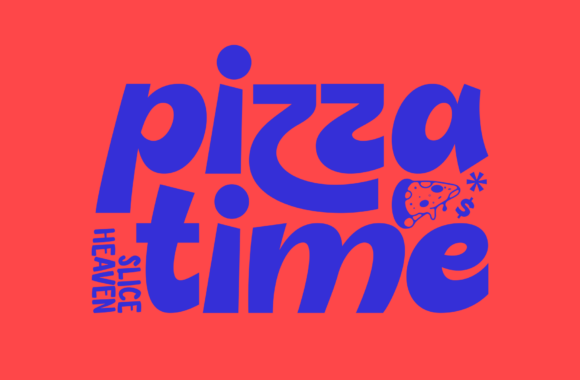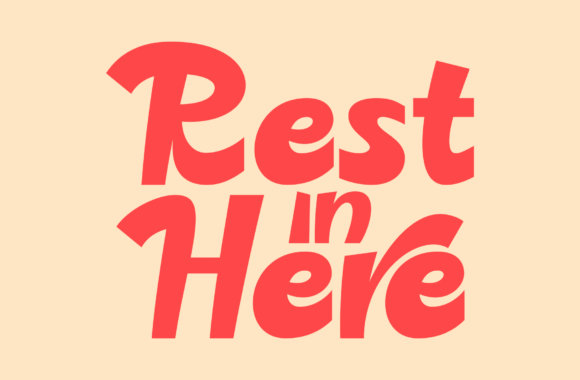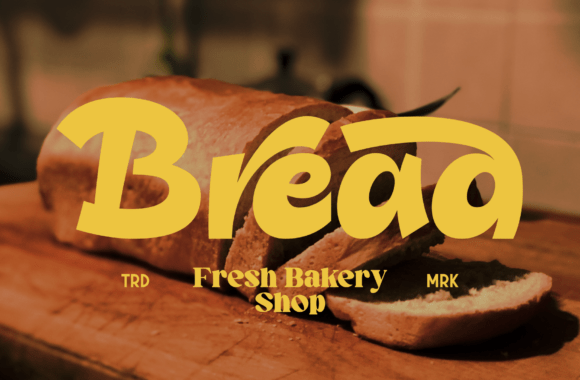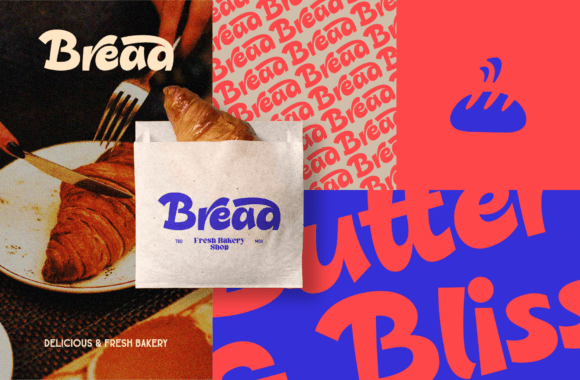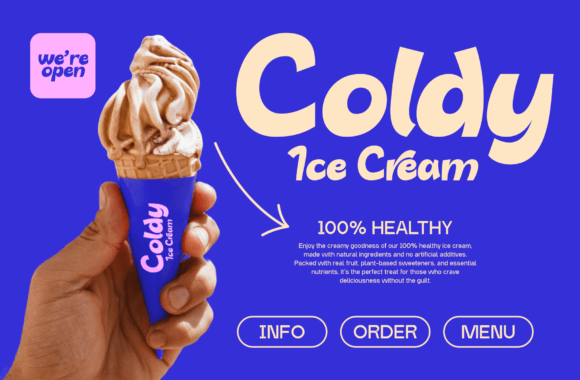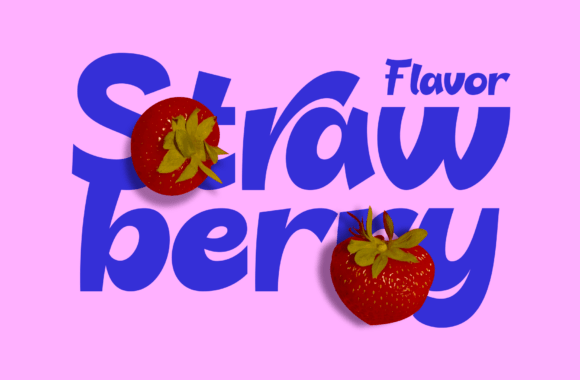
Bulgera Font: A Bold, Dynamic, and Playful Typographic Style
In the world of typography, fonts play a crucial role in conveying the tone and personality of a brand, product, or service. Among the numerous font styles available, Bulgera Font stands out for its bold, dynamic, and playful characteristics. This article will delve into the features and benefits of Bulgera Font, exploring its design elements, usage, and applications in various creative projects.
Design Elements of Bulgera Font
Bulgera Font exhibits a unique blend of smooth curves, exaggerated letterforms, and a slightly slanted orientation. These design elements combine to create a casual yet modern aesthetic that is both visually appealing and engaging. The thick strokes and rounded edges of the font contribute to a sense of warmth and friendliness, making it an excellent choice for branding, advertising, and creative designs.
Smooth Curves and Exaggerated Letterforms
The smooth curves and exaggerated letterforms of Bulgera Font are its defining features. The curves provide a sense of fluidity and movement, while the exaggerated letterforms add a touch of playfulness and creativity. These design elements work together to create a font that is both eye-catching and memorable.
Slightly Slanted Orientation
The slightly slanted orientation of Bulgera Font adds to its dynamic and playful feel. This subtle slant gives the font a sense of energy and movement, making it perfect for designs that require a sense of action and excitement.
Benefits of Using Bulgera Font
Bulgera Font offers several benefits for designers and crafters. Its bold and dynamic style makes it an excellent choice for:
- Branding: Bulgera Font is ideal for creating bold and memorable brand identities. Its unique design elements help to differentiate a brand from its competitors and create a lasting impression.
- Advertising: The font’s playful and attention-grabbing style makes it perfect for advertising campaigns. It can help to draw attention, convey a message, and leave a lasting impact on the audience.
- Creative Designs: Bulgera Font is a versatile font that can be used in various creative projects, such as posters, flyers, brochures, and digital graphics. Its bold and dynamic style adds a touch of excitement and energy to any design.
Tips for Using Bulgera Font Effectively
To get the most out of Bulgera Font, consider the following tips:
- Use it as a headline font: Bulgera Font is perfect for headlines and titles. Its bold and dynamic style makes it easy to read and attention-grabbing.
- Pair it with a simple font: To create visual balance, pair Bulgera Font with a simple and clean font for body text.
- Experiment with colors: Bulgera Font looks great in bold and bright colors. Experiment with different colors to find the perfect combination for your design.
Bulgera Font is a bold, dynamic, and playful typographic style that is perfect for designers and crafters looking to add a touch of excitement and energy to their designs. Its unique design elements, such as smooth curves, exaggerated letterforms, and a slightly slanted orientation, make it an excellent choice for branding, advertising, and creative designs. By following the tips outlined in this article, you can use Bulgera Font effectively and create stunning designs that leave a lasting impression.
Whether you’re a seasoned designer or a crafty DIY enthusiast, Bulgera Font is an excellent addition to your typography toolkit. Its bold and dynamic style is sure to inspire creativity and help you create stunning designs that stand out from the crowd.